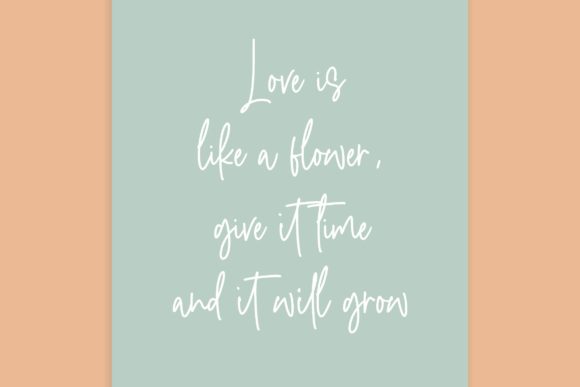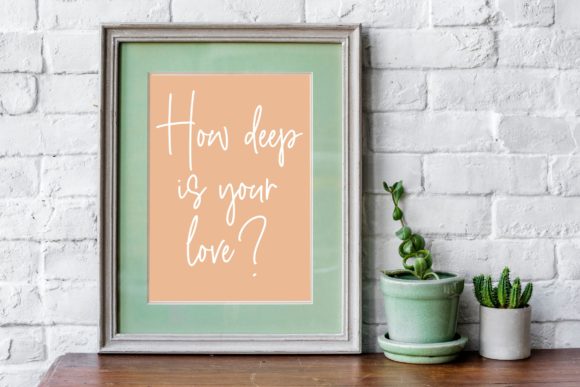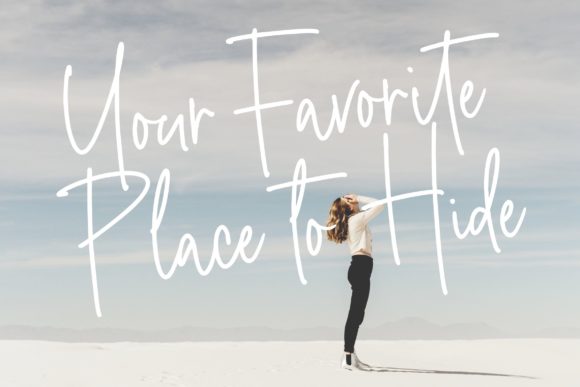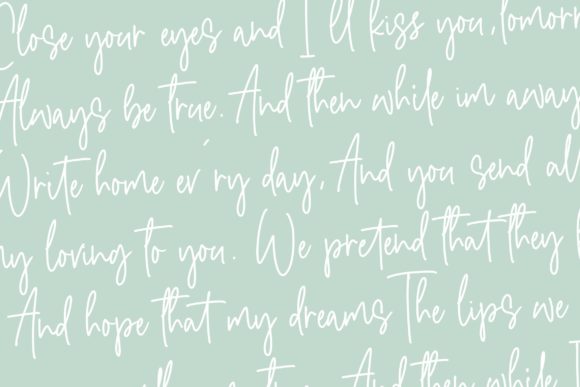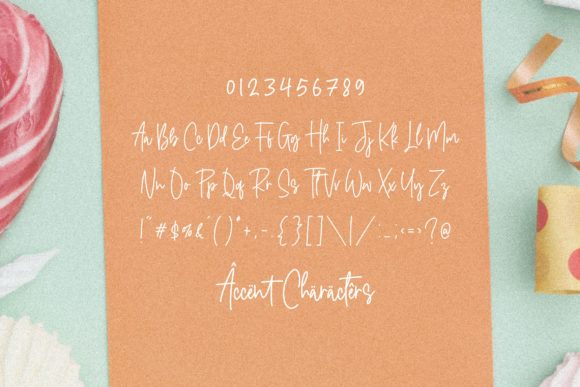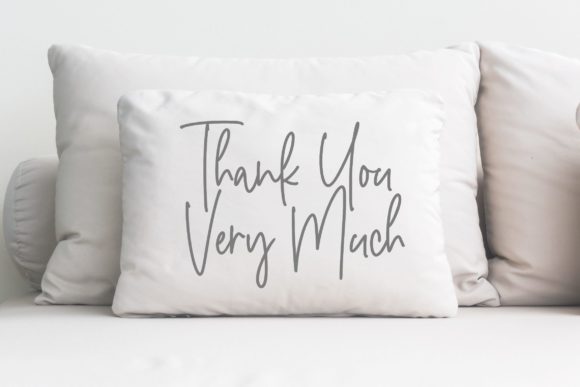
Candyreins Font
About Candyreins Font
Candyreins is a sweet and relaxed handwritten font, designed with the help of a cute brush pen. Fall in love with its authentic feel and use it to create gorgeous wedding invitations, beautiful stationary art, eye-catching social media posts, and cute greeting cards.